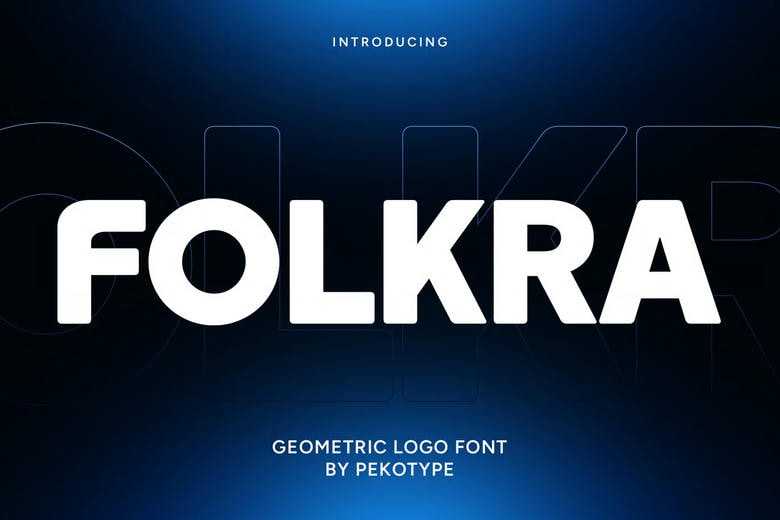
Folkra Font
FOLKRA is a neat and contemporary geometric font logo to step it up a notch with your branding. By using a faux credible structure, curved edges, and clean minimalistic style, FOLKRA is ideal to be used by creators and companies who need a visible statement, modern, and elegant at the same time.
Formed in a balance of form and functionalism, FOLKRA works best with logos, corporate identity, billboard design, signage, package designs, and graphics in social media. Its awesome multifunctional features can fit perfectly in both digital and print forms and as such you do not have to think twice about it when selecting your preferred choice of professional and powerful typography.
If you are creating a tech brand, starting a startup, or relabeling a contemporary product, FOLKRA with its geometric balance and purity of lines will take your project to the peak it needs.
Folkra Logo Font